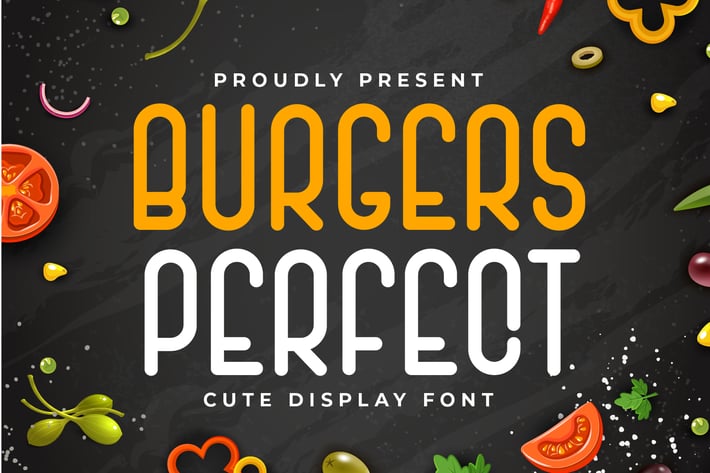
Burgers Perfect - Display Font
Introducing Burgers Perfect - Display Font
Burger Perfect is a quirky and cute display font that fits perfectly into anything. Its casual charm makes it look very down to earth, easy to read and, in the end, very versatile.Add this beautiful display font to your every creative idea.